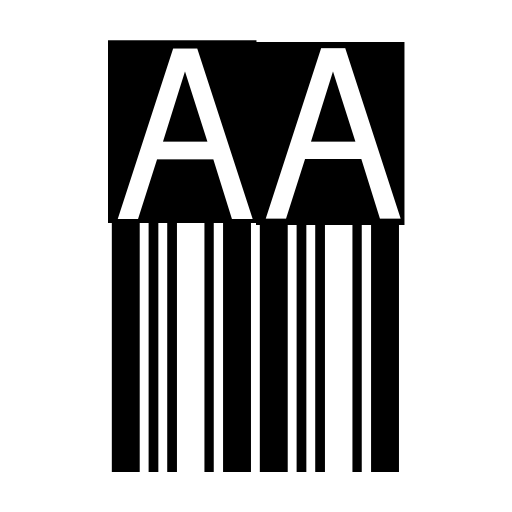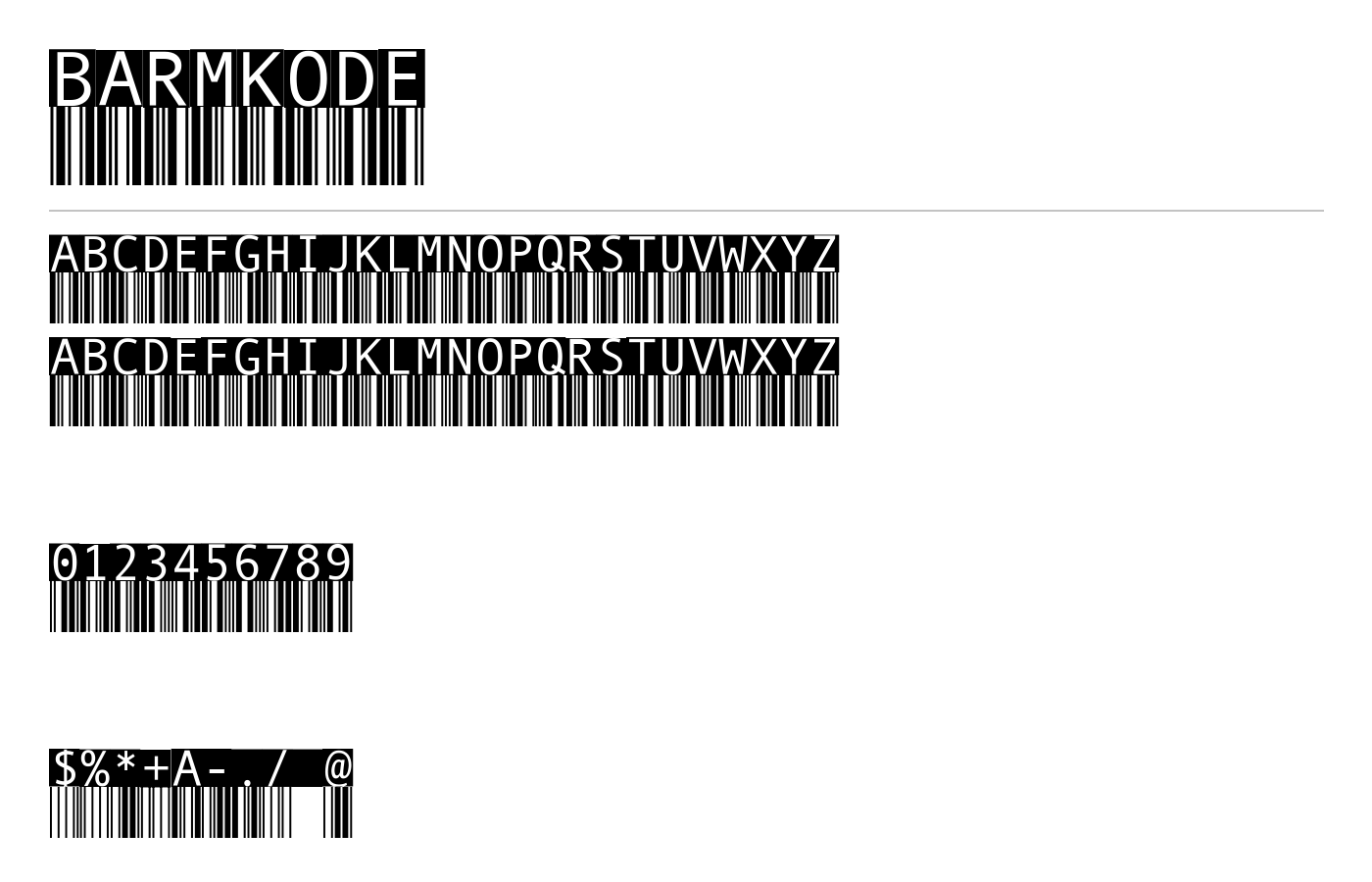
BarMKode is a bold, condensed sans-serif font that combines clean geometric letterforms with barcode-like vertical lines, creating a unique, tech-inspired aesthetic. Its tall, narrow characters and high contrast between solid strokes and fine barcode lines give it a modern, industrial feel, making it ideal for futuristic branding, packaging, and designs that want to convey innovation and digital sophistication. This font works best in headlines and logos where its striking, distinct style can stand out and capture attention.
BarMKode Font